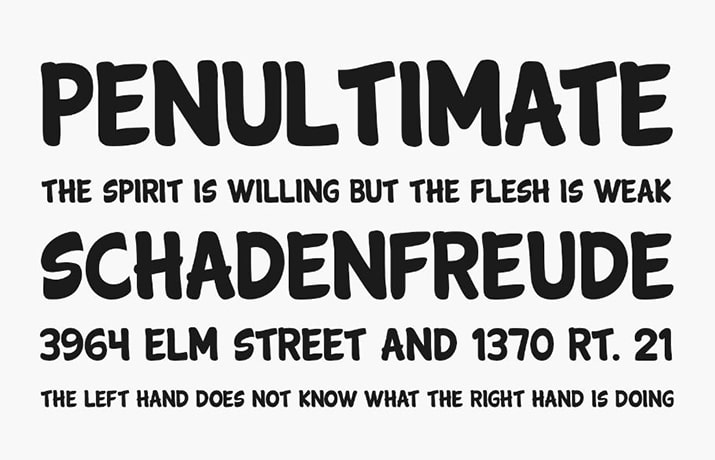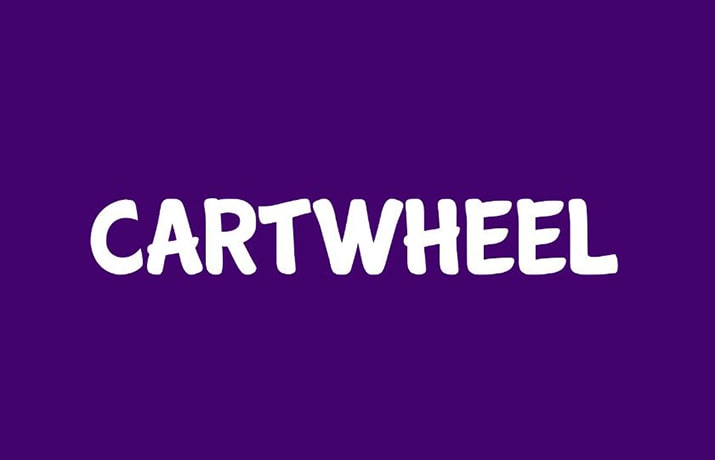
With its slightly bold look and cheerful theme, Cartwheel Font is great for projects from children’s books, birthday invitations, comic books, and more.
Tom Censani is known as the primary designer of this font family. And he shared it via his type foundry the Sansami Fonts in 2009.
This was the first attempt of Tom Censani in the font designing industry. And in my view, it worked very well.
Because this fancy font is very friendly and easily fits into any type of design. So this is the advice I give you if you want to achieve any goal then use it.
| Style: | Comic, Cartoon, Fancy |
| Font Designer: | Tom Censani |
This comic font can be used for banner ads, billboards, headlines, titles, logos, watermarks on photos, comic covers, printing cards, book covers, comic books, printing, special events, etc. It would also be a great idea to use it for game posters or movie posters.
The designer has introduced only one style, that’s why it comes in a single variant. But this single style has great potential with 93 glyphs and 1000 units per em.